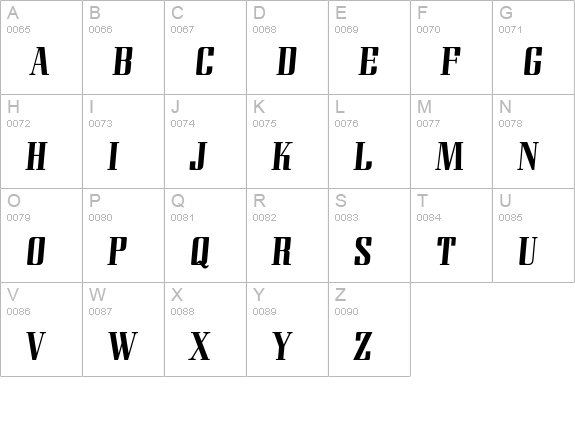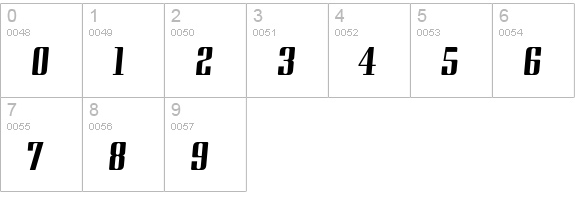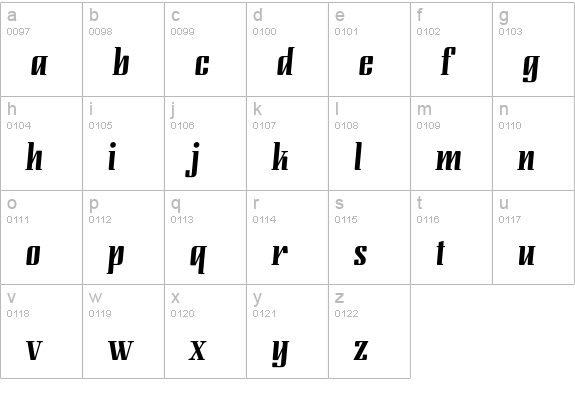
LundaModern-Regular Font Details
LundaModern-Regular is the standard, neutral variant in the LundaModern typeface family \xE2\x80\x94 well suited to general body text, paragraphs, and standard typographic work.
LundaModern-Regular font is a versatile and stylish typeface that embodies a perfect blend of modernity and sophistication. With its clean lines and balanced proportions, this font is suitable for a wide range of design projects, from branding to editorial design. The sleek and elegant appearance of LundaModern-Regular exudes a sense of professionalism and refinement. One of the best things about LundaModern-Regular font is that it is available for free download at FontsMarket.com. This means that you can easily access and use this high-quality font in your projects without any cost. Whether you are a professional designer or a casual user looking to enhance your creations, LundaModern-Regular font offers a valuable resource that is both accessible and visually appealing. Overall, LundaModern-Regular font is a must-have addition to your font library, offering a timeless and contemporary aesthetic that will elevate your designs to the next level. Download it for free today at FontsMarket.com and start creating stunning visuals with this exceptional typeface.